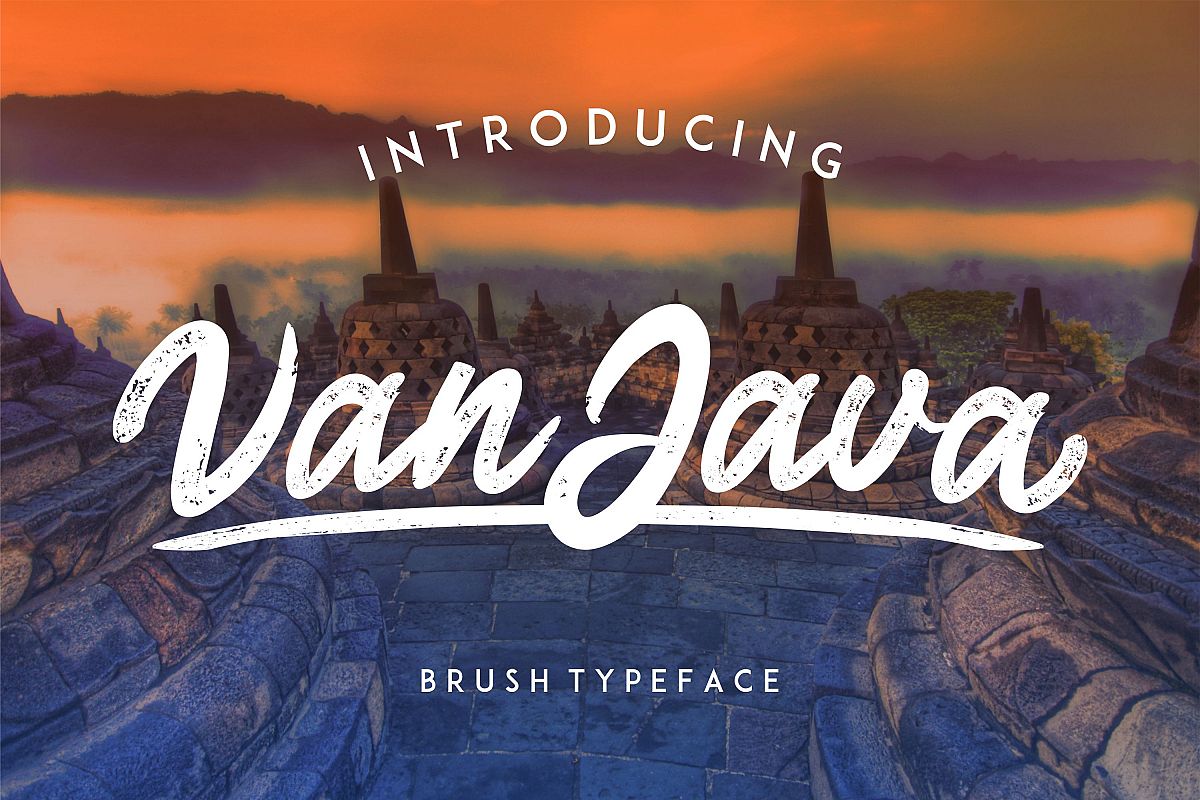
Van Java
Van Java is a brush stroke, bold, strong and modern.
Very good if used for: logos, brands, shirts and various kinds of products that require a touch of strength, retro and modern.